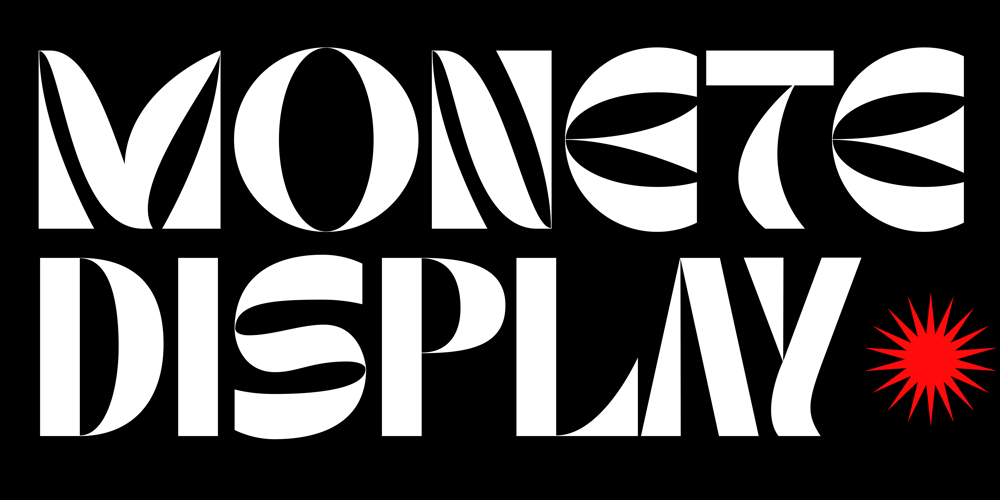
Monete Font Family was designed by Syaiful Rizal Muhaimin and published by Ameenatype. Monete contains 1 styles and family package options. Introducing “Monete Display” is a striking and contemporary geometric display typeface, meticulously crafted to make a bold visual impact. Its design is characterized by clean, sharp geometric forms, lending it a futuristic and modern aesthetic. This font is perfect for headlines, logos, posters, and any graphic design project that demands a strong, attention-grabbing statement.The typeface strikes a harmonious balance between sharp angles and smooth curves, offering versatility for a wide range of design applications, from minimalist to dynamic compositions. “Monete Display” is engineered to ensure legibility and visual appeal at large sizes, making it an ideal choice for branding, advertising, and editorial design.